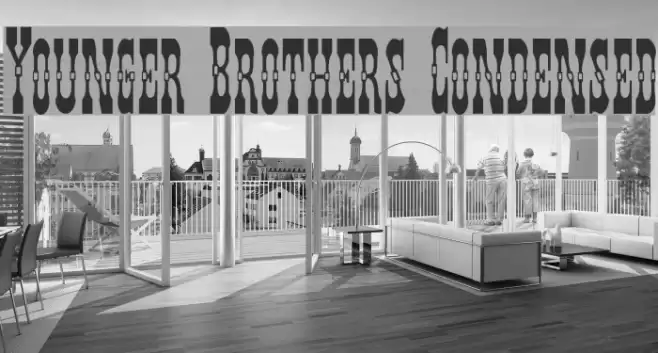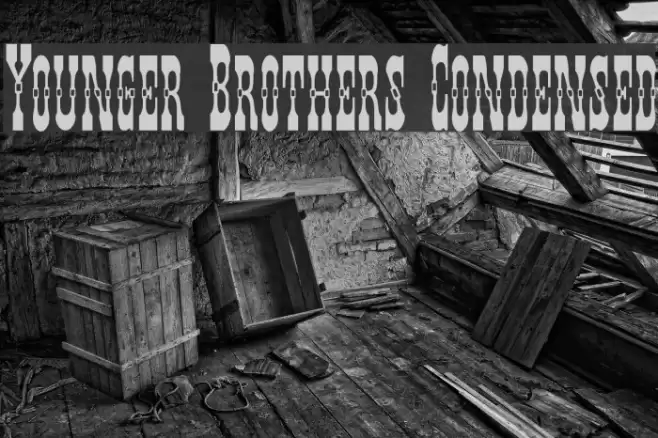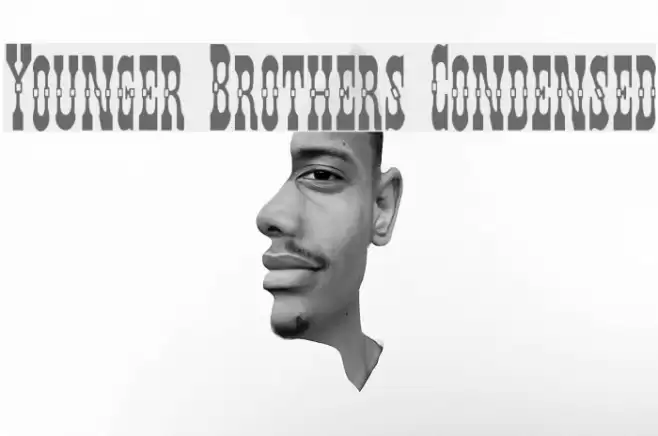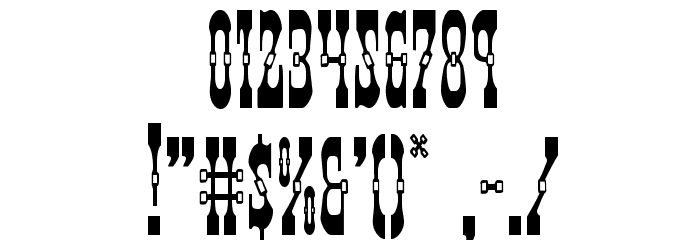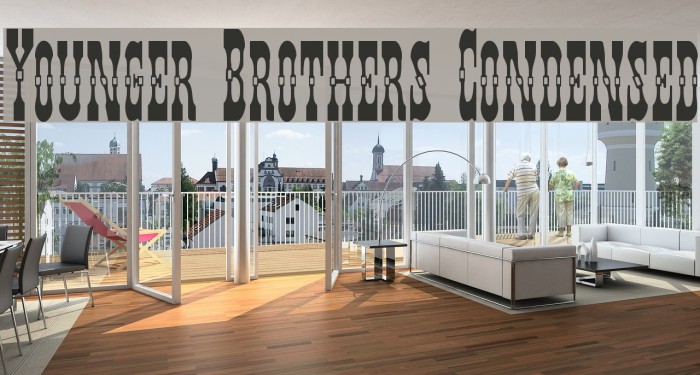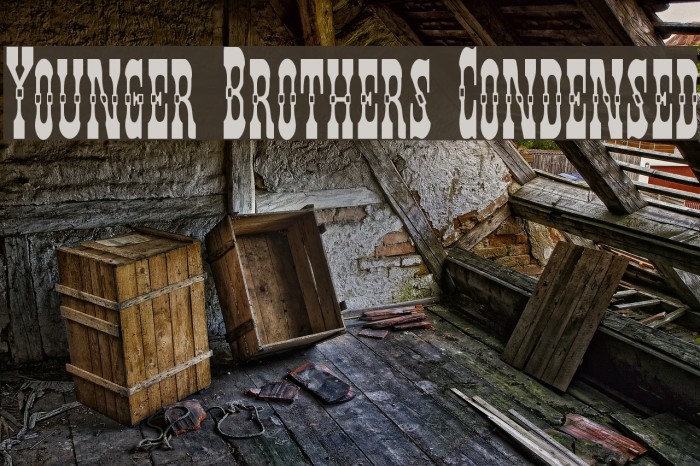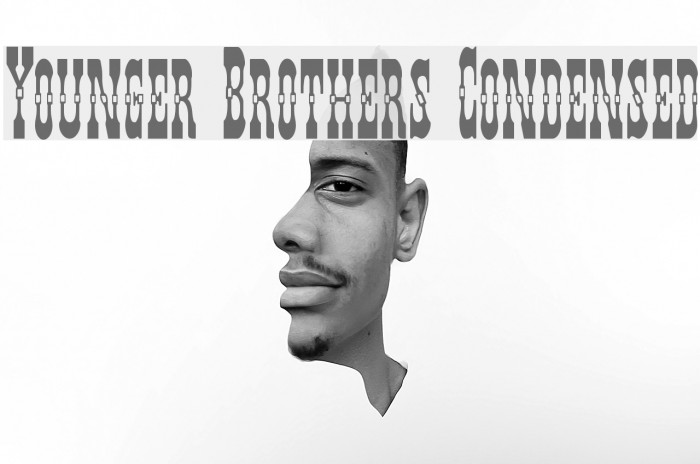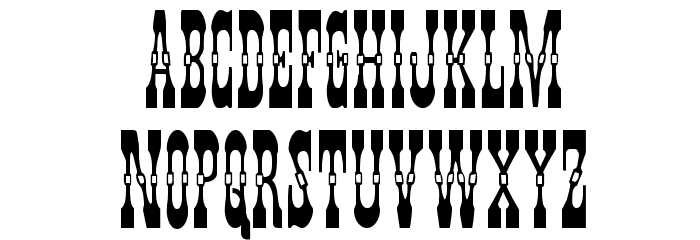
Younger Brothers Condensed Font
Younger Brothers Condensed Description
This font features a bold and condensed style with a distinct Western or vintage flair. The characters are tall and narrow, with pronounced serifs that give them a strong, impactful presence. The design includes unique cut-out details within the strokes, adding a decorative and eye-catching element. This font is reminiscent of old-fashioned wanted posters or vintage signage, making it ideal for projects that require a touch of nostalgia or a bold statement. The uppercase and lowercase letters maintain a consistent style, and the numerals and special characters are equally stylized, enhancing the overall cohesive look.
A bold, condensed font with a vintage Western style and decorative cut-out details from Uncategorized fonts.
- Proposed Projects: Ideal for vintage-themed posters, branding for Western-style events, or any design needing a bold, nostalgic touch.
- Character Spacing: Tight
- Overall Style: Vintage